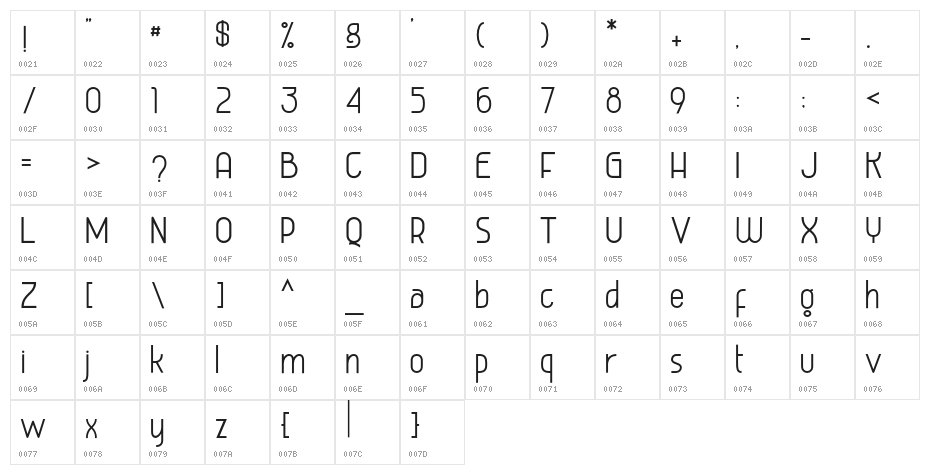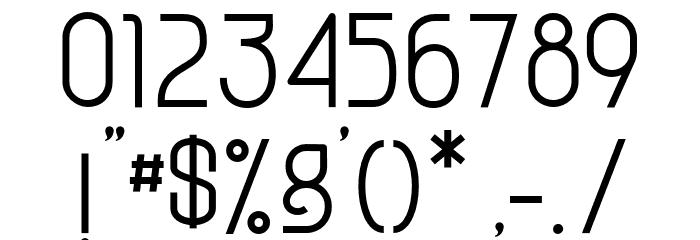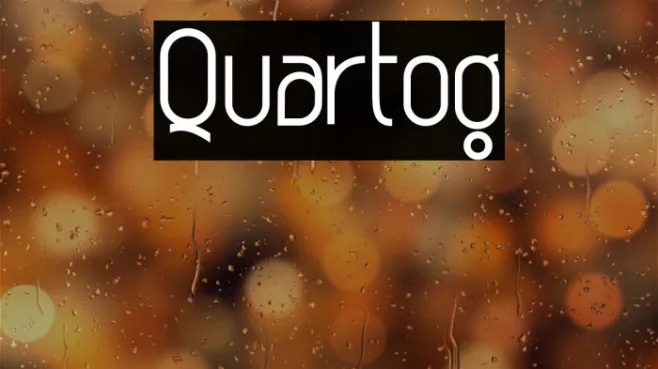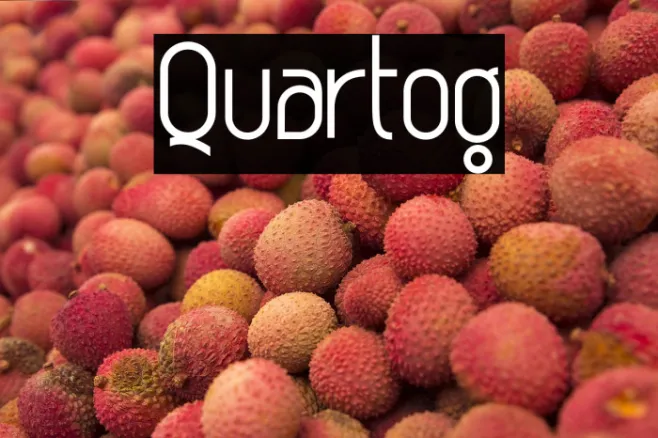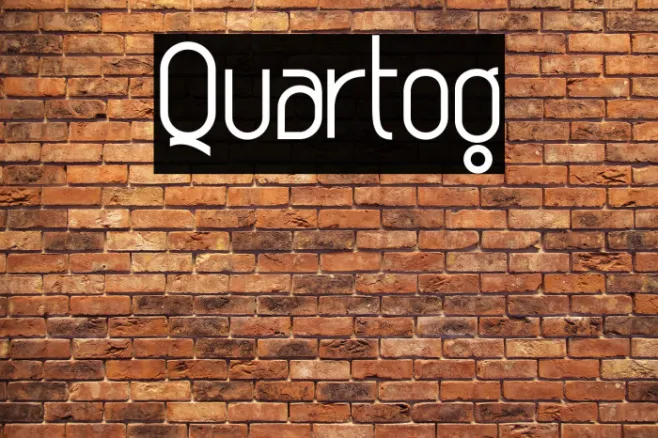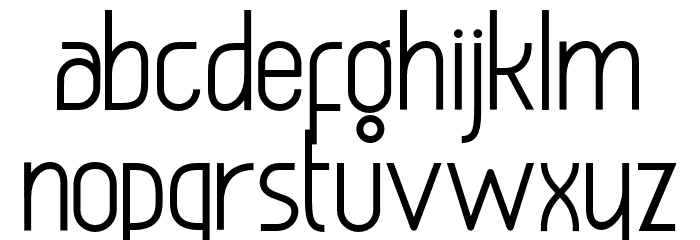
Quartog Font
Quartog Description
This font features a modern, geometric design with clean lines and a uniform structure. The uppercase letters are tall and slightly condensed, giving a sleek and contemporary appearance. The lowercase letters maintain a consistent height, with rounded edges that soften the overall look. The numerals are clear and distinct, matching the style of the alphabet. Special characters are well-integrated, maintaining the geometric theme. The font's simplicity and clarity make it versatile for various design applications.
| Use Case | Headlines, Logos, Digital Interfaces |
| Proposed Projects | Ideal for branding, digital interfaces, signage, and editorial design. |